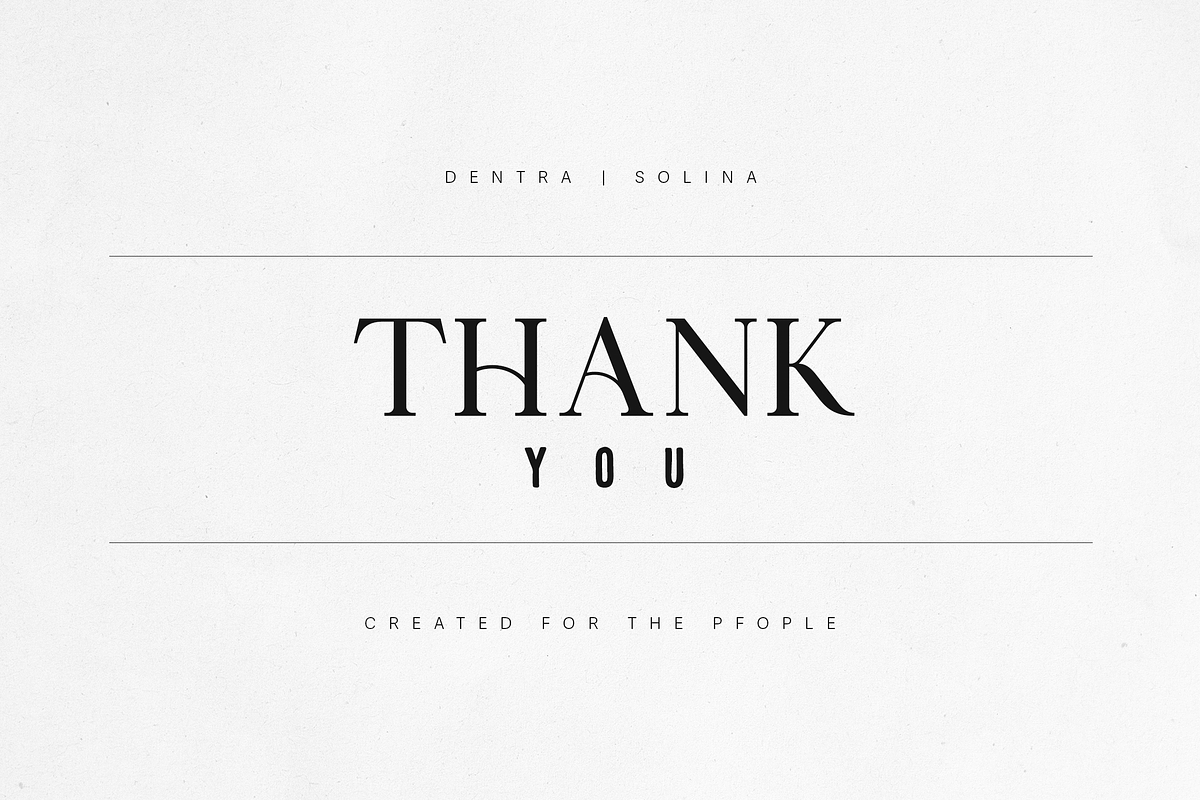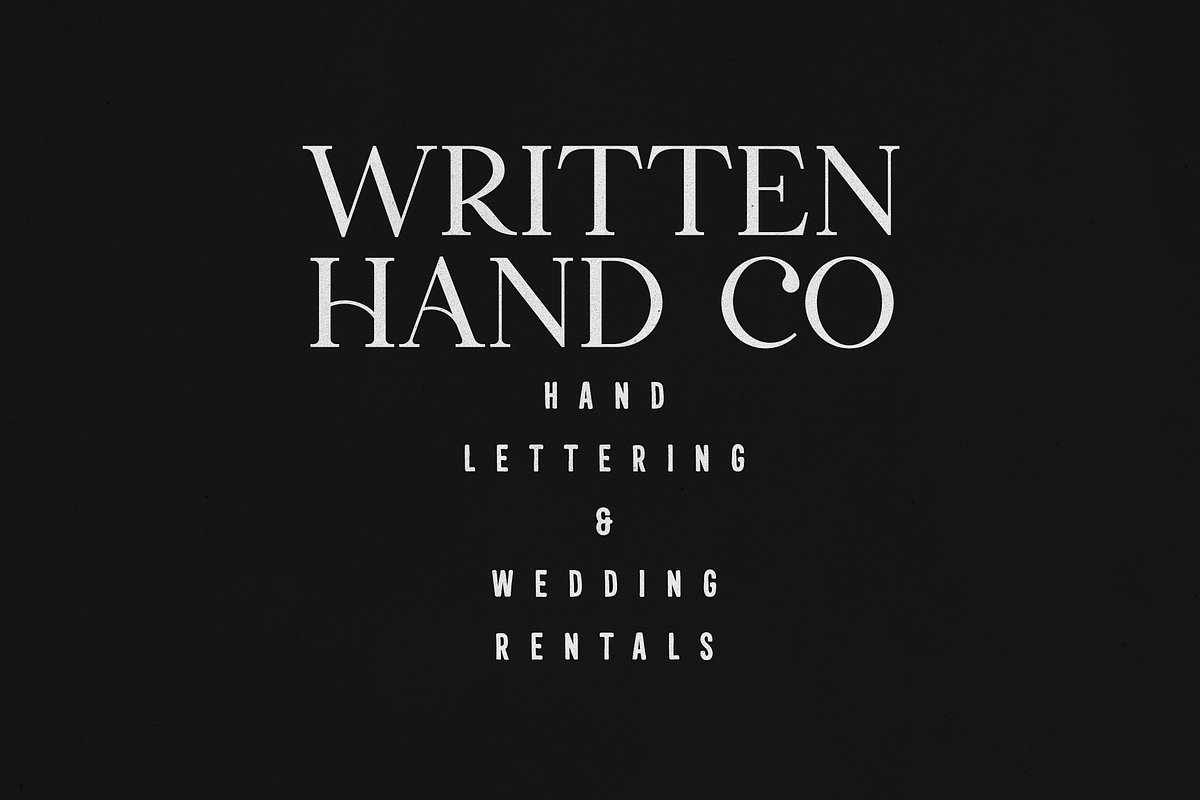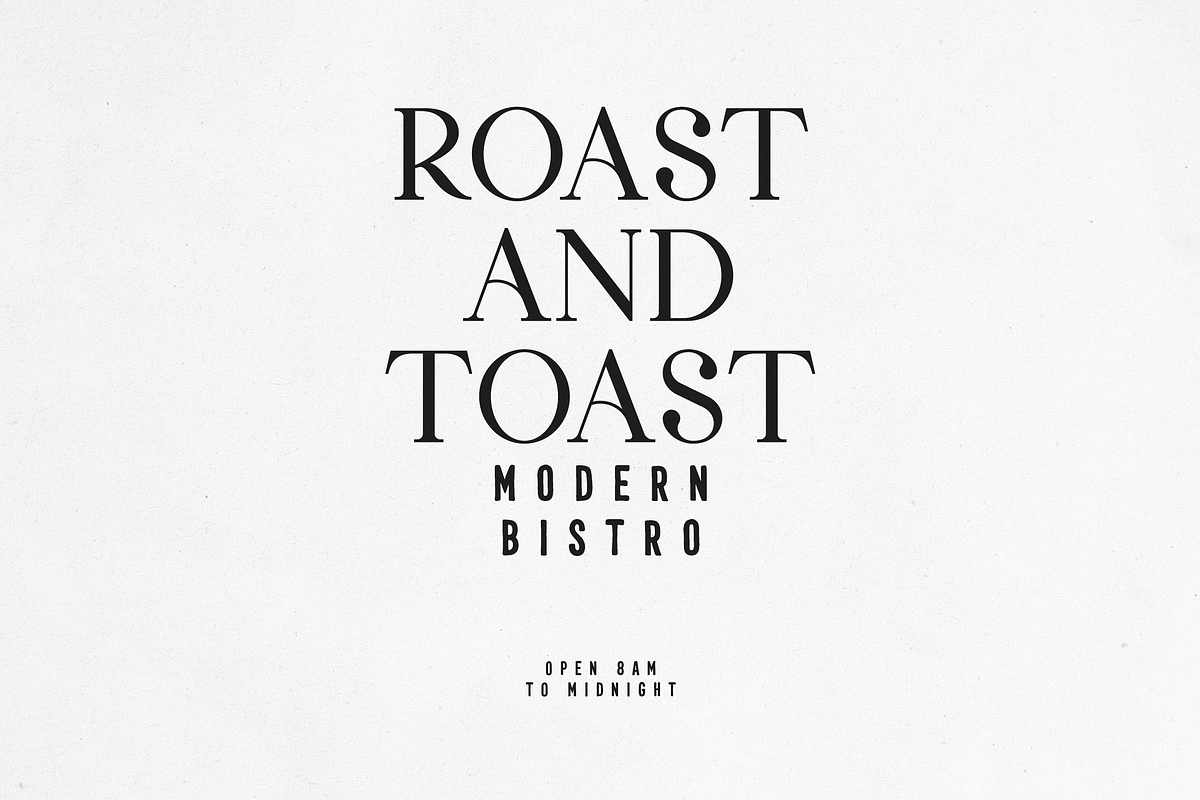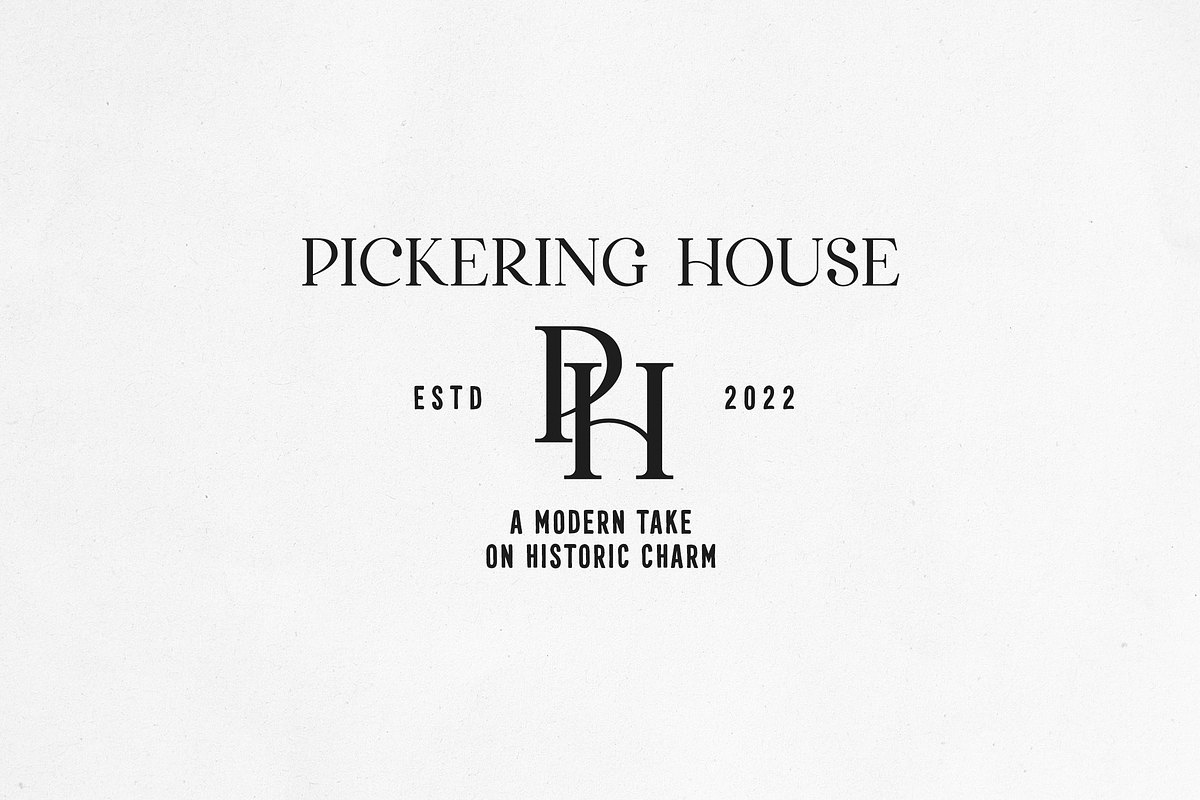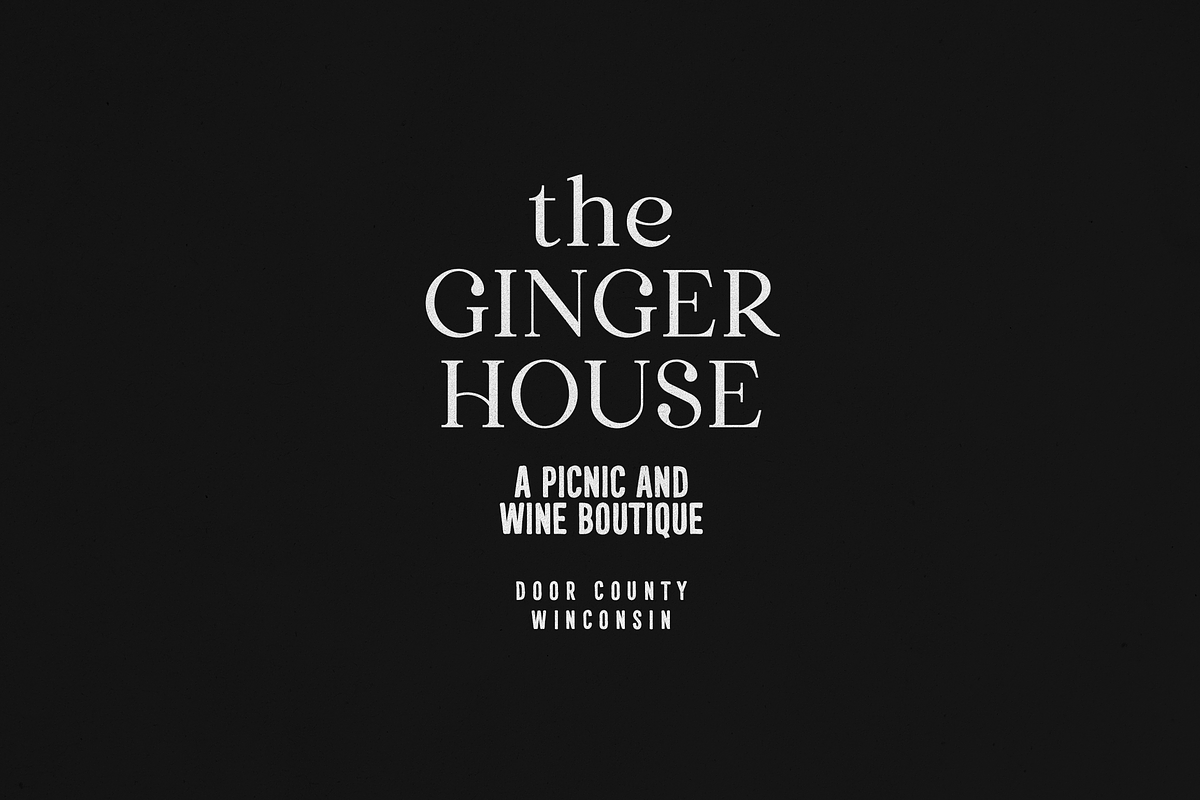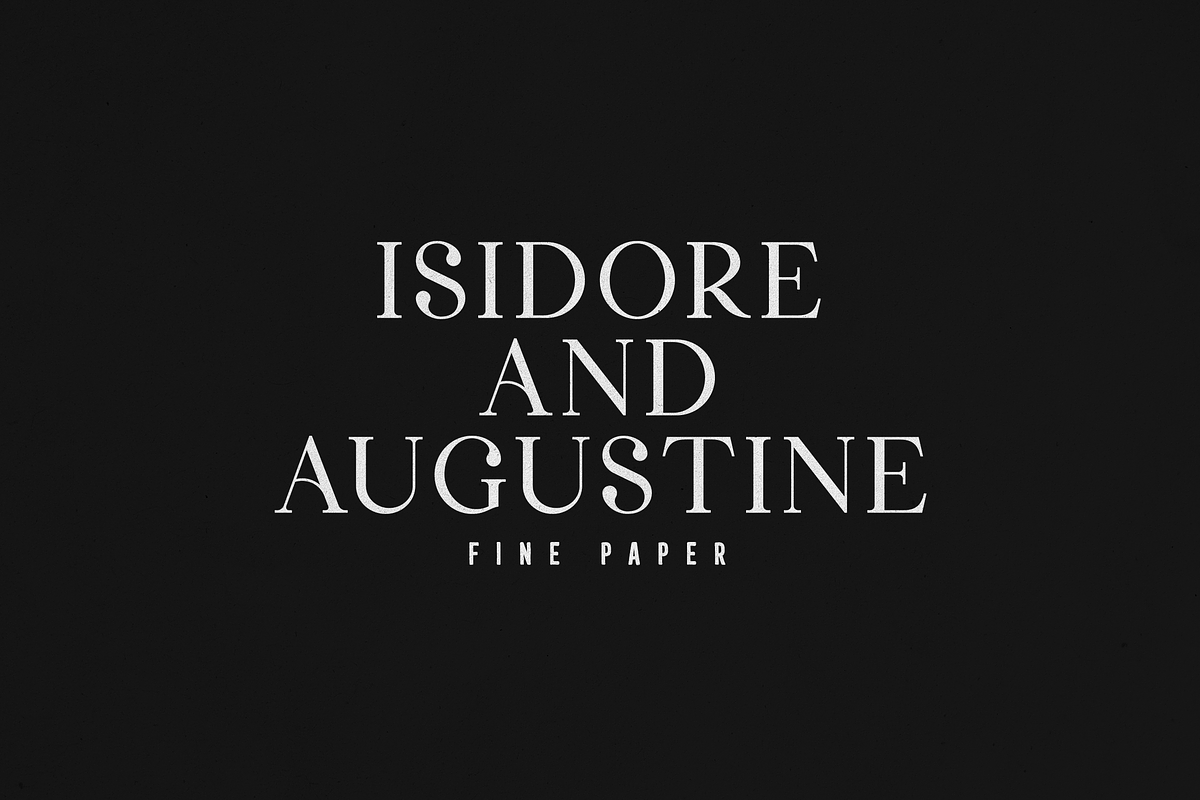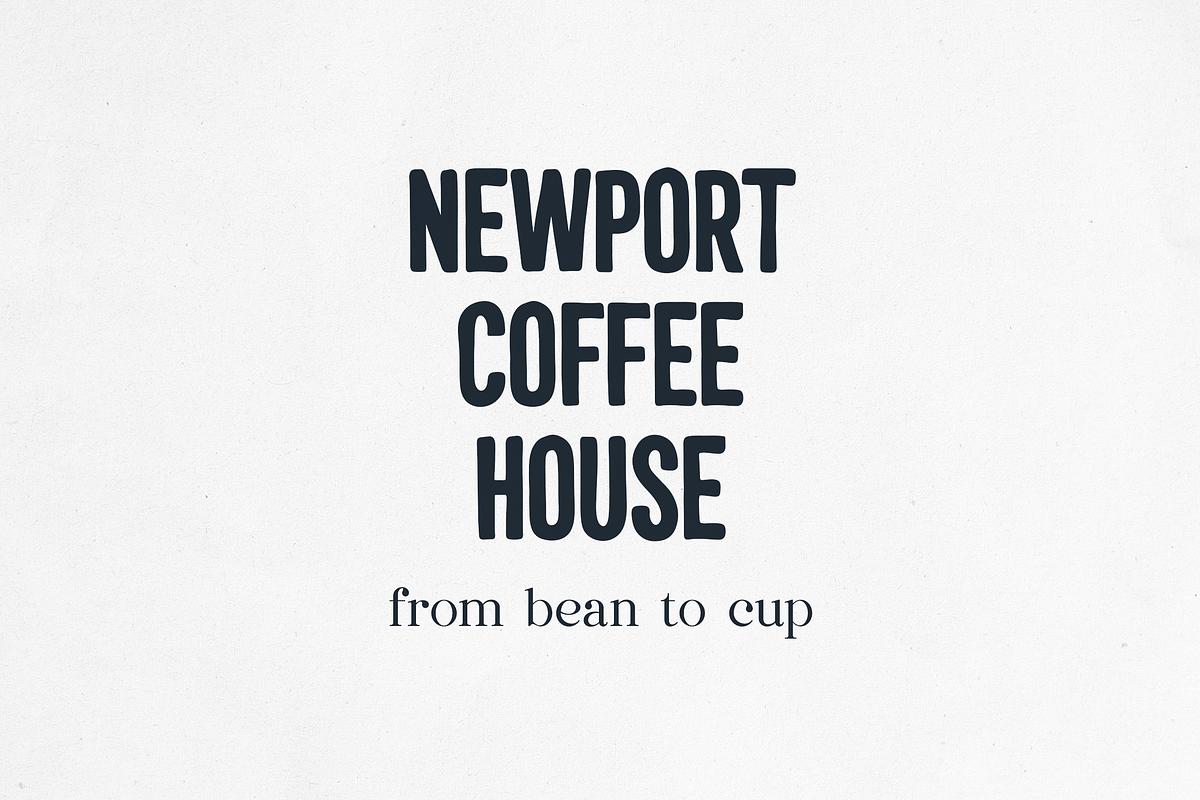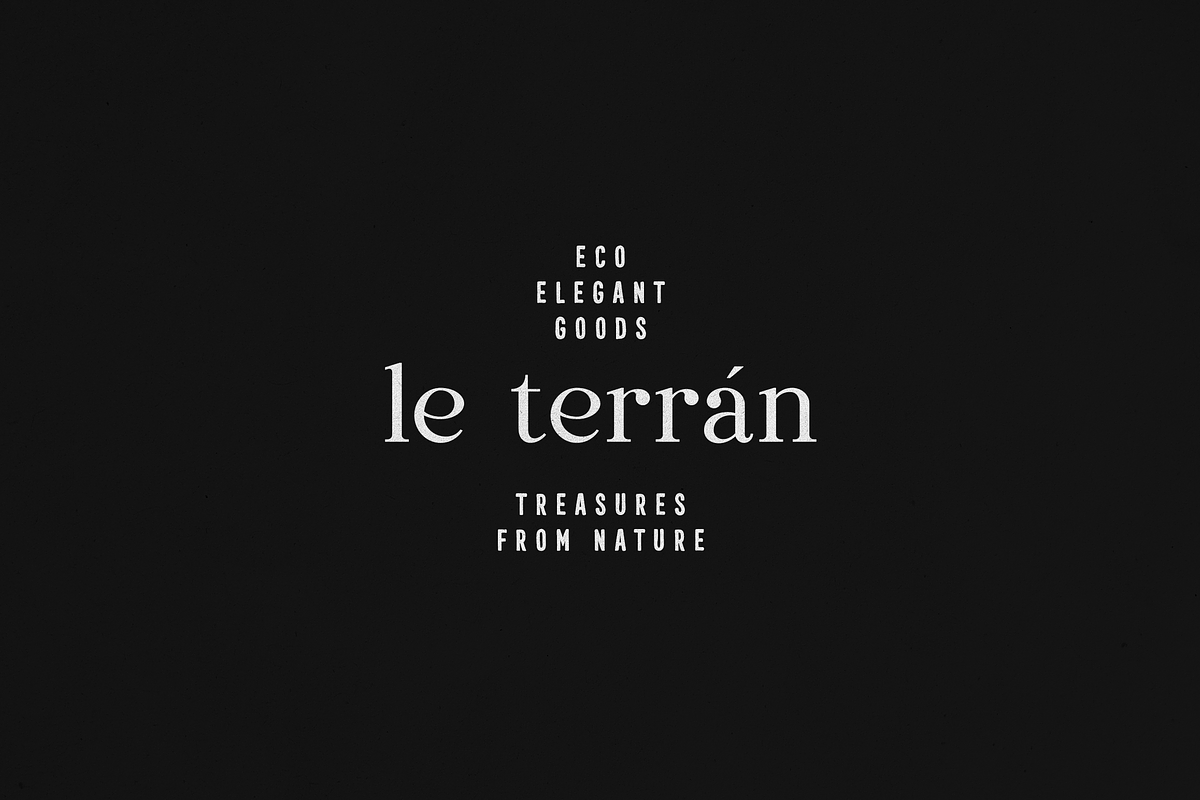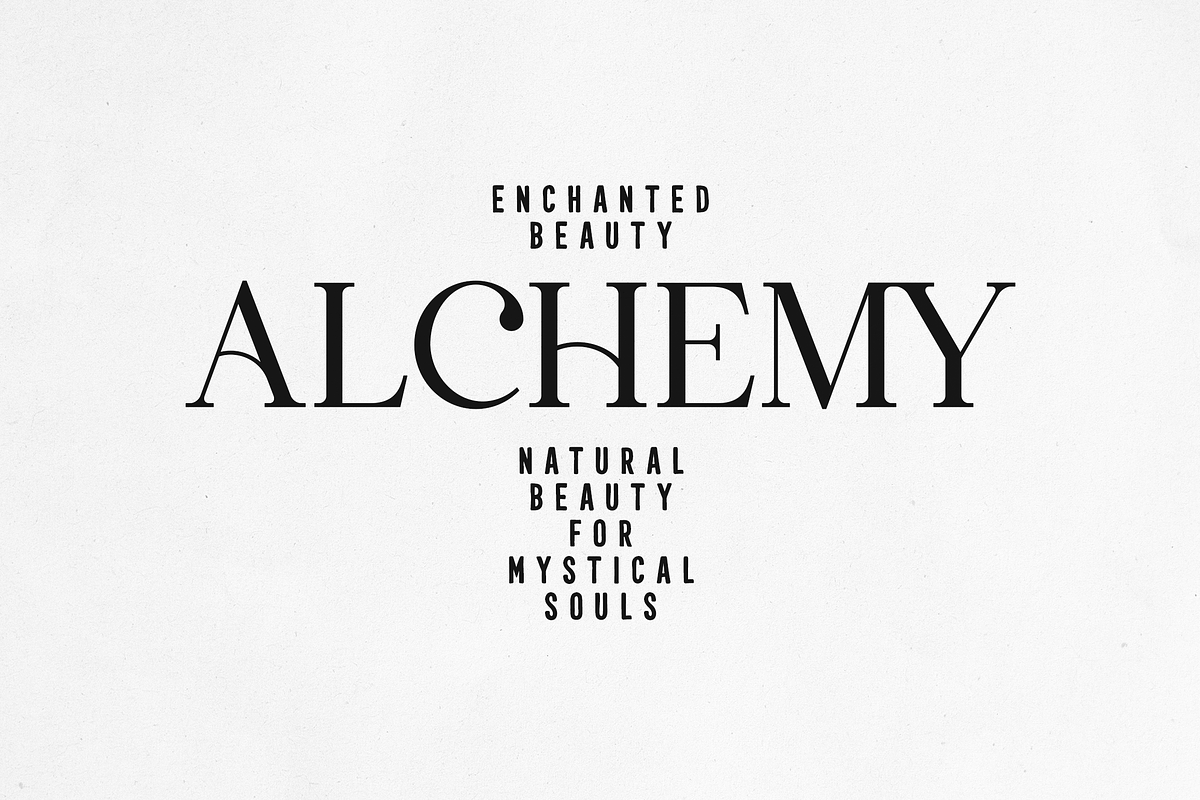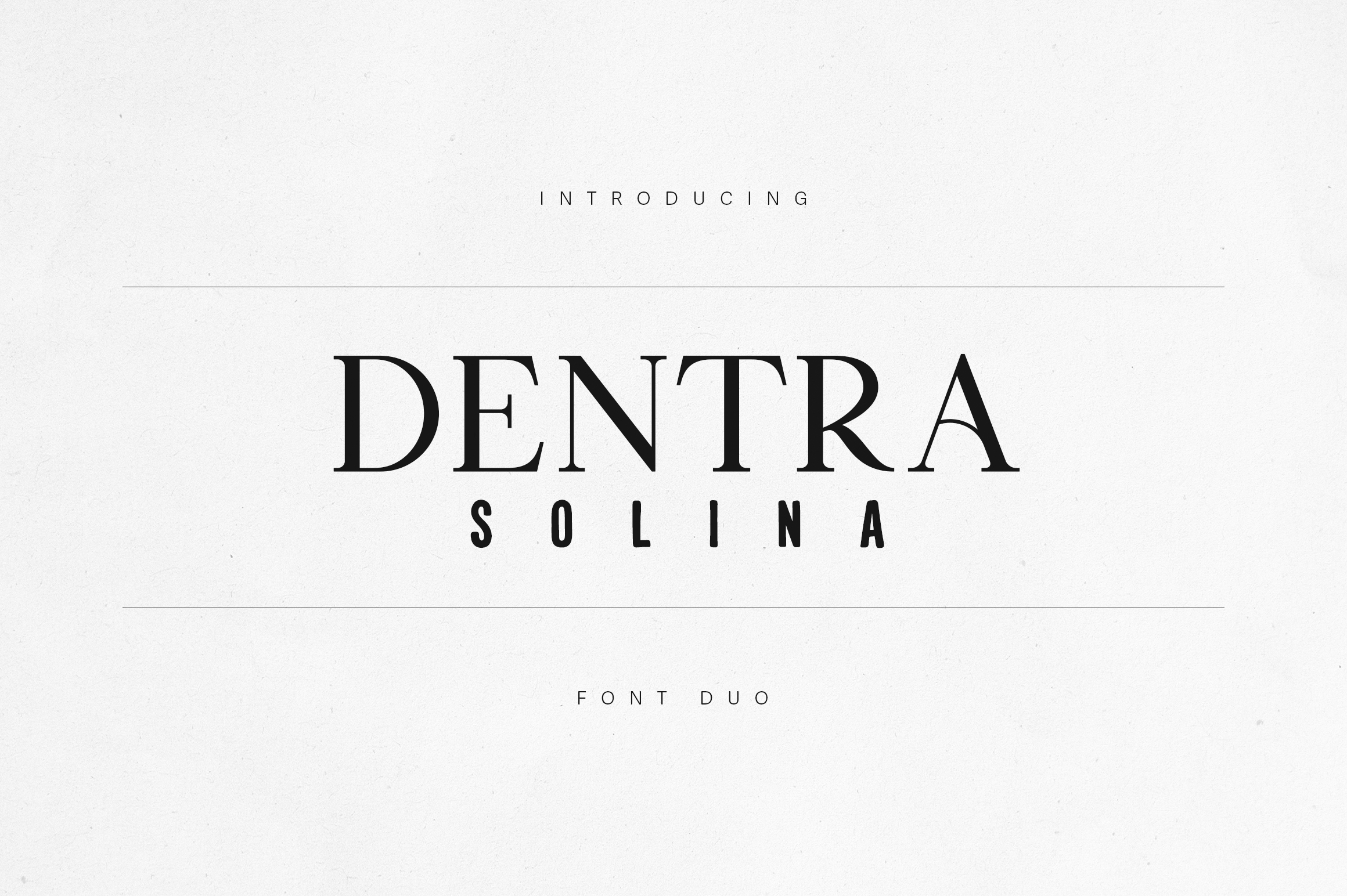
Dentra Solina – Elegant Font Duo
Dentra Solina – Elegant Serif & Sans Font Duo
Where timeless elegance meets handcrafted modernism.
Dentra Solina is a luxurious font duo that pairs a refined classic serif with a bold, condensed sans, designed to elevate branding, packaging, and editorial layouts. Its sophisticated curves and graceful contrast create the perfect balance of modern minimalism and timeless beauty.
This versatile duo works harmoniously across logos, fashion identities, coffee packaging, wedding stationery, beauty branding, and boutique signage. Every letterform is thoughtfully designed to feel both artisan-crafted and editorially polished, making Dentra Solina your go-to choice for creating upscale, cohesive brand systems.
- Luxury branding & editorial projects
- Boutique logos & packaging design
- Invitations & wedding stationery
- Café, lifestyle, and interior brands
- Magazines, social media, and web headers
Dentra Solina brings quiet confidence and effortless sophistication to any design — crafted for designers who value timeless beauty with a modern edge.